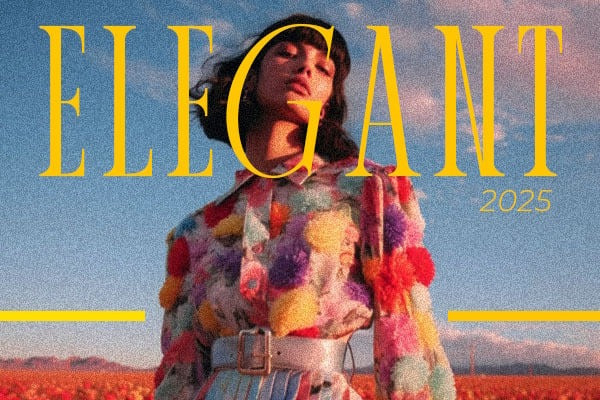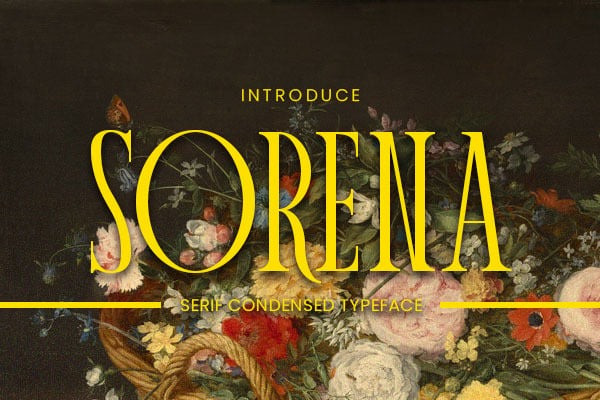
Sorena Font
Sorena Font, an exquisite condensed serif typeface designed to bring a touch of elegant and feminine sophistication to your projects. Perfect for display use, Sorena captures attention with its refined presence, making it ideal for headlines, luxury branding, editorial designs, and striking visuals.
Catering to diverse design needs, Sorena comes complete with both a regular and an italic version, offering versatility to express various moods and emphasize key messages. Elevate your designs with Sorena’s delicate yet impactful charm.